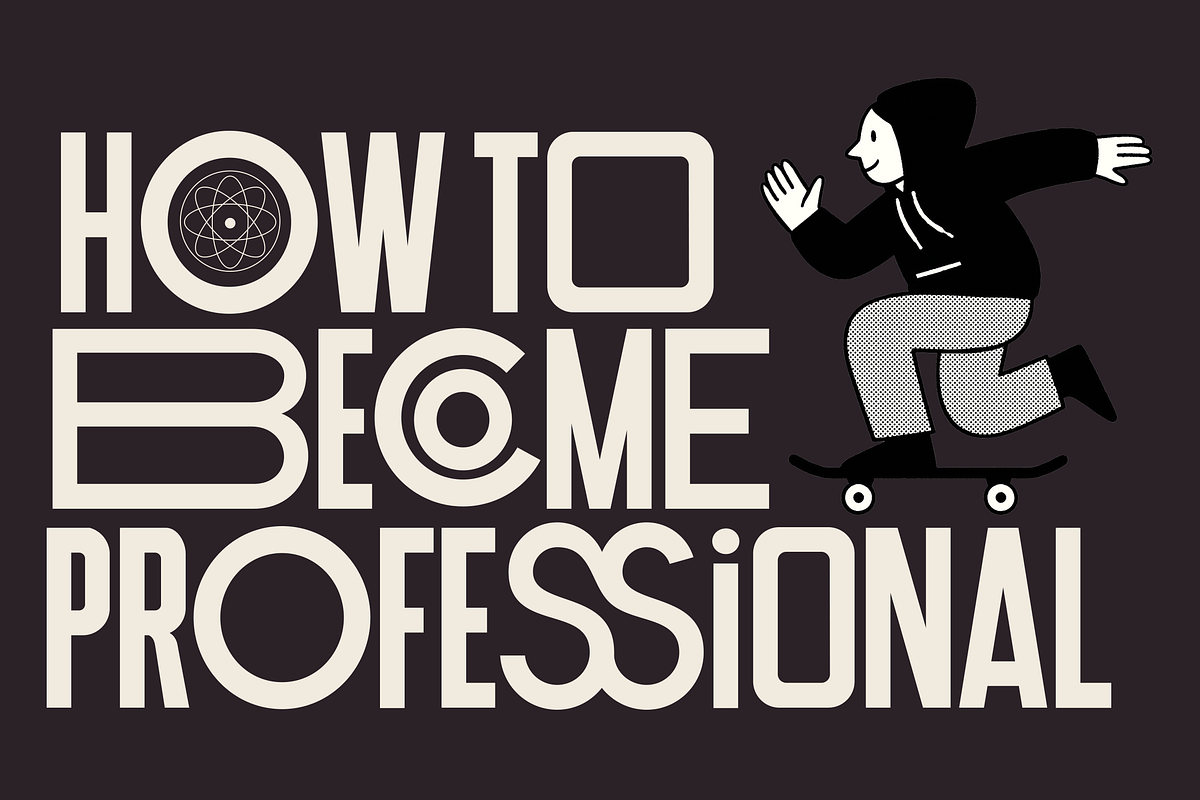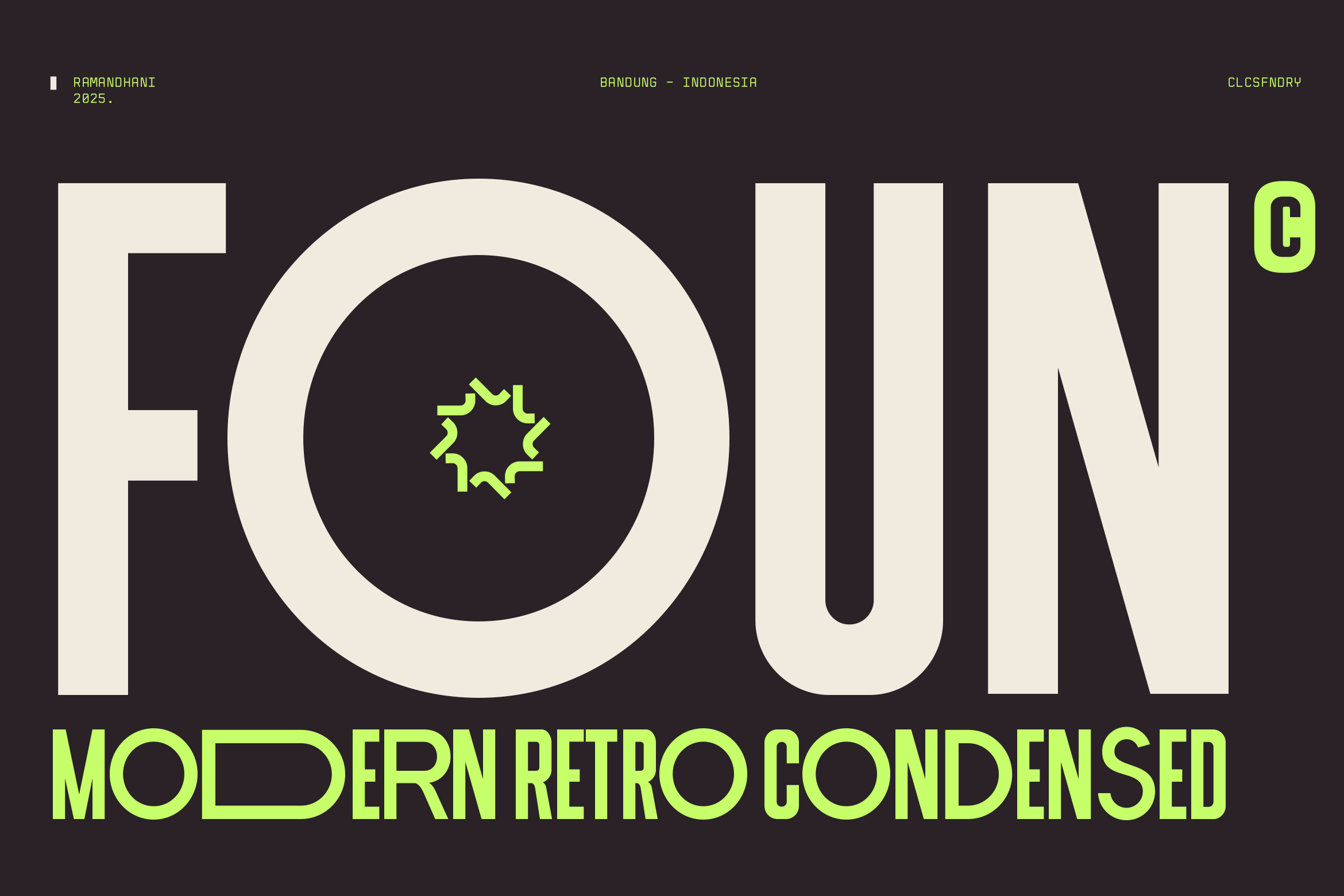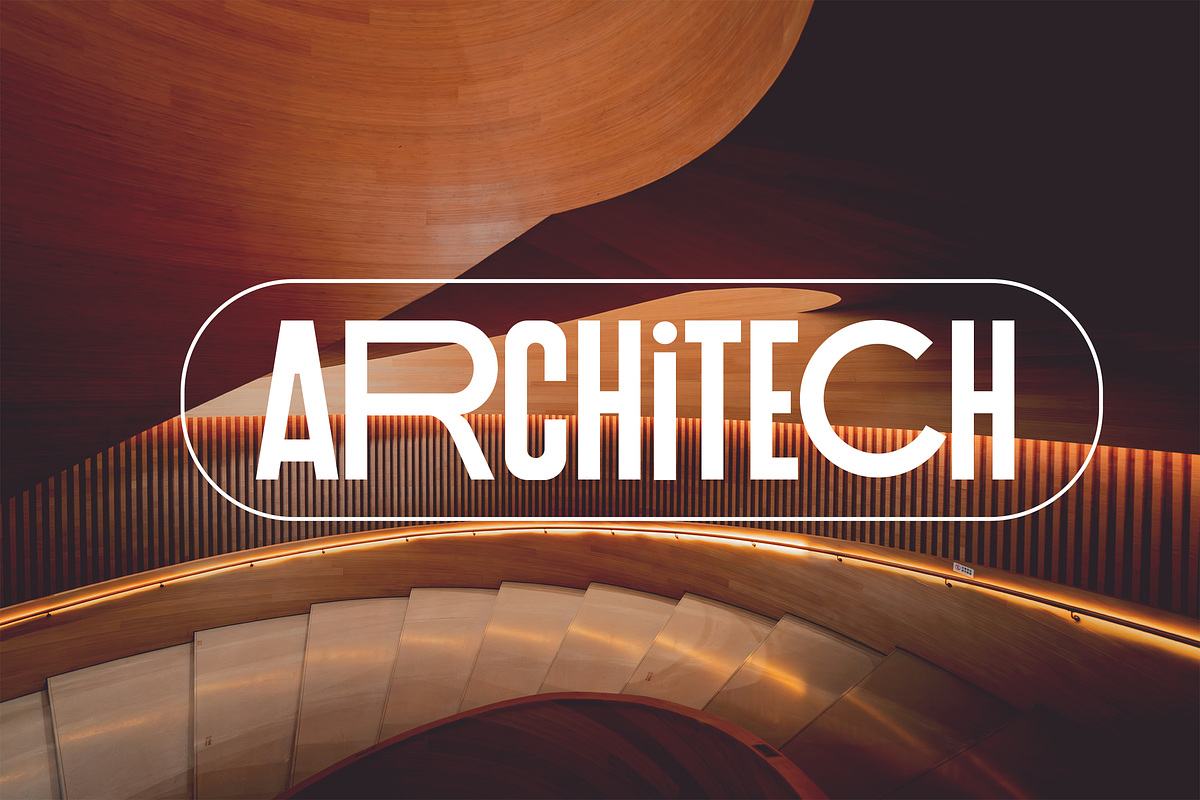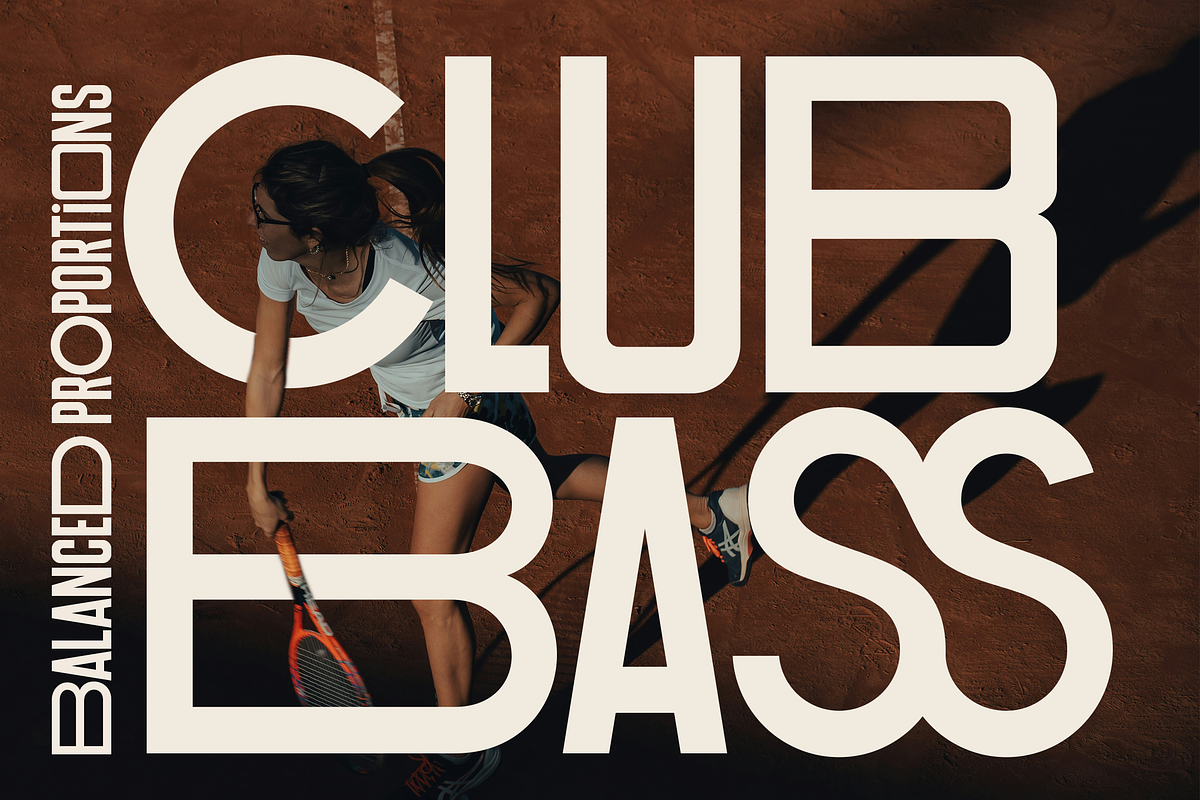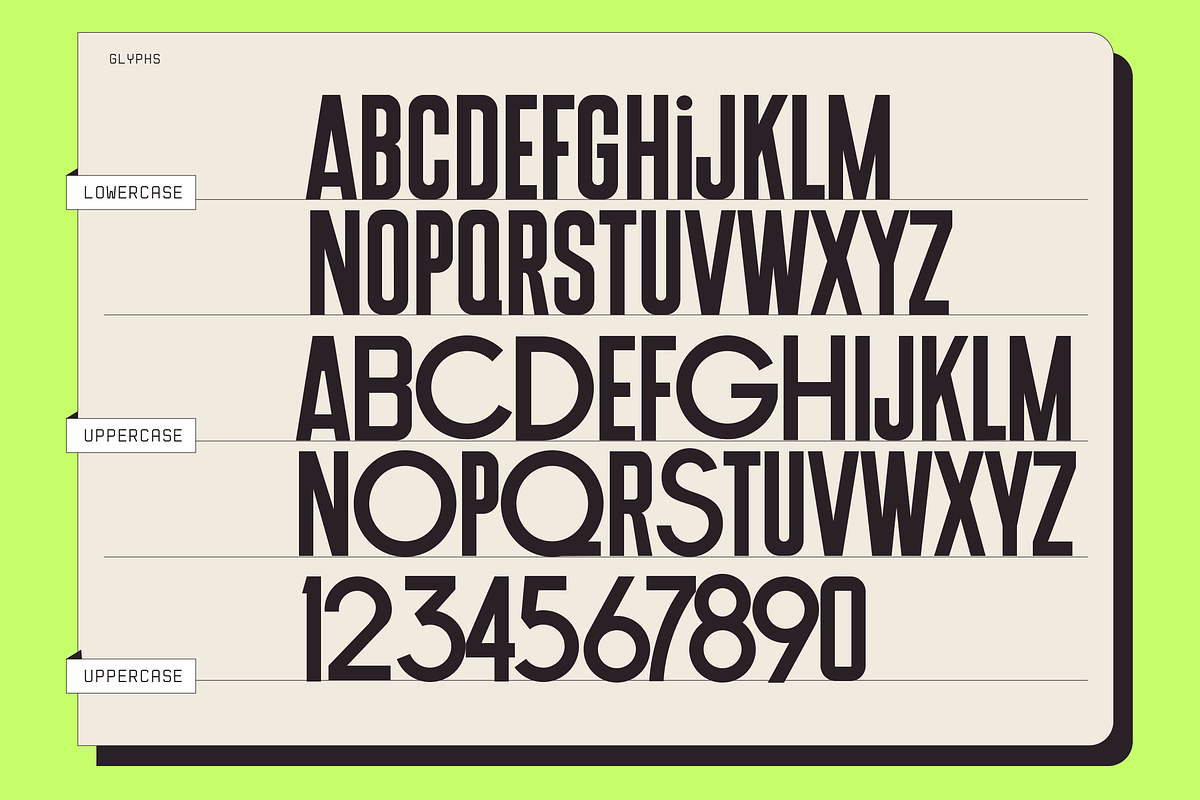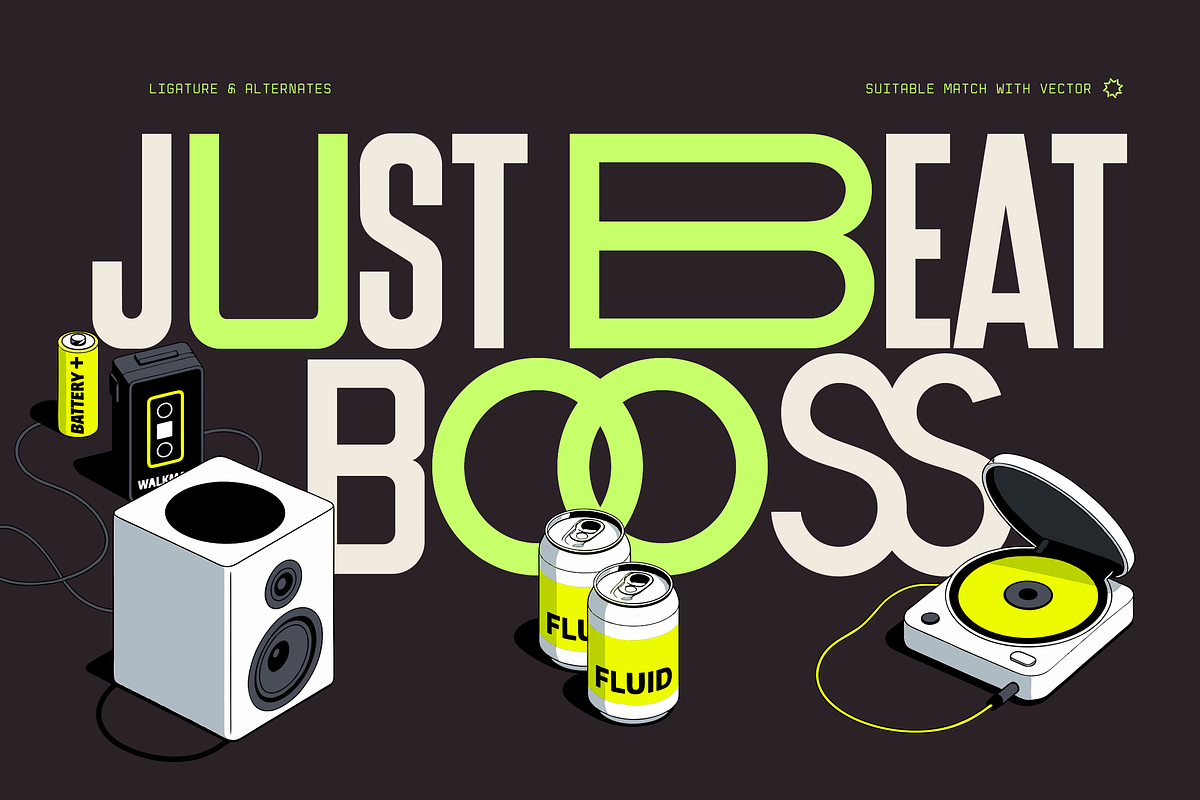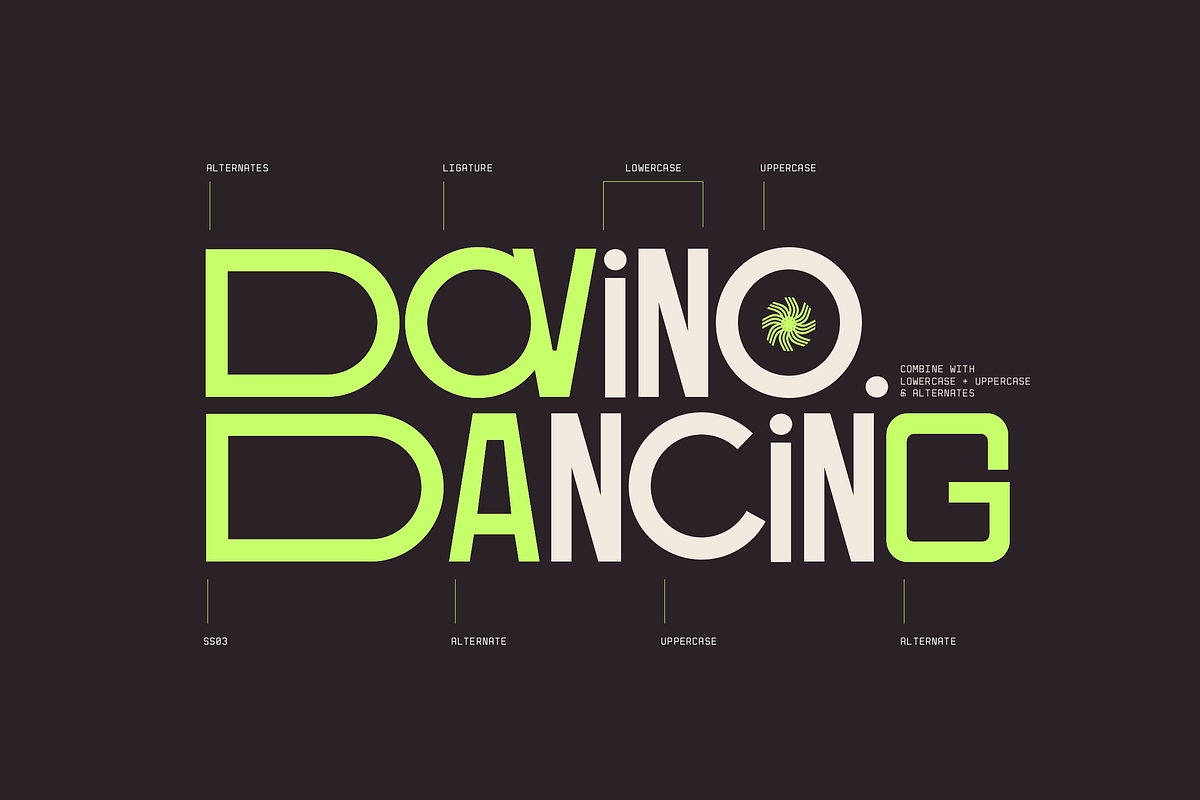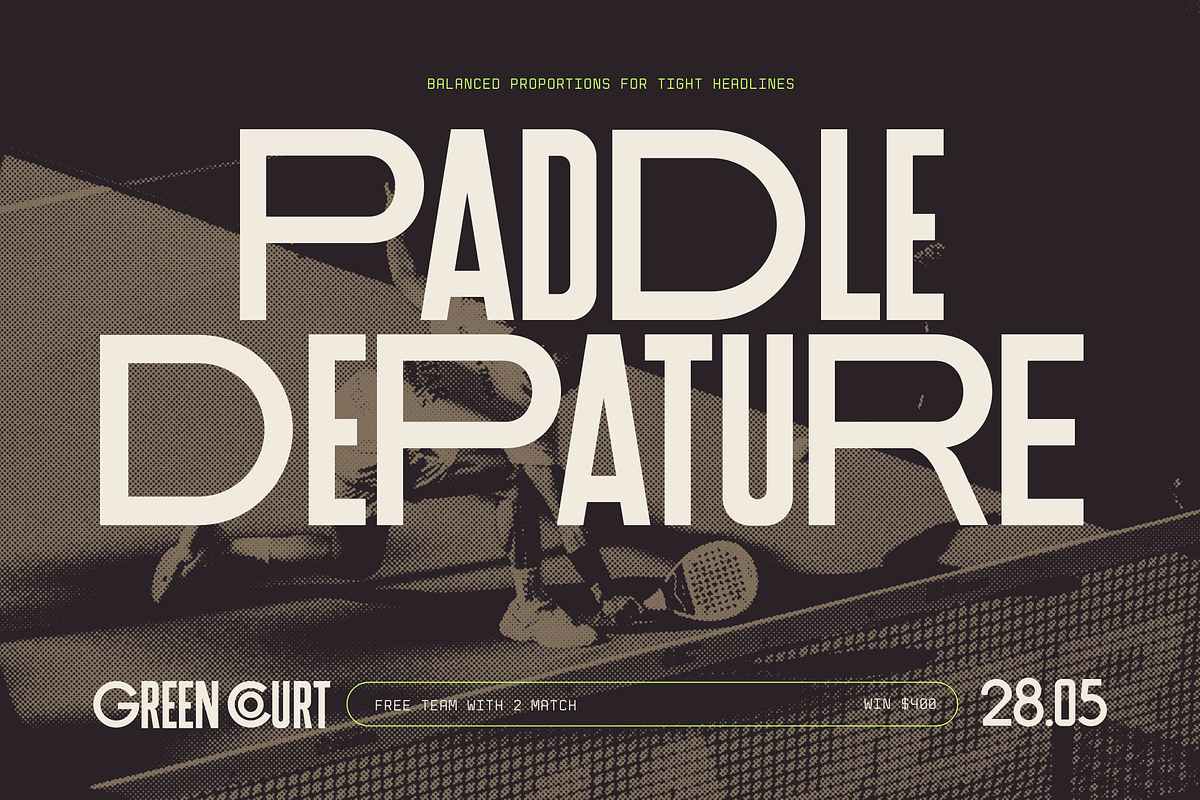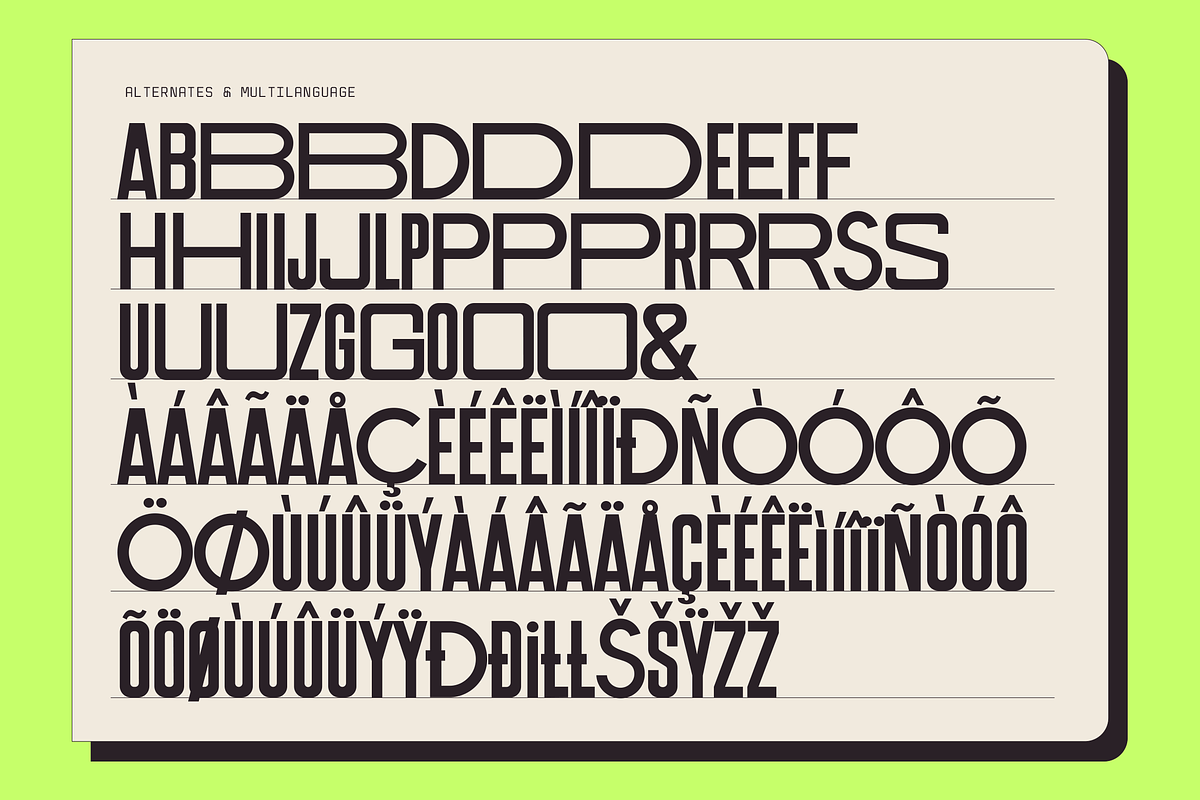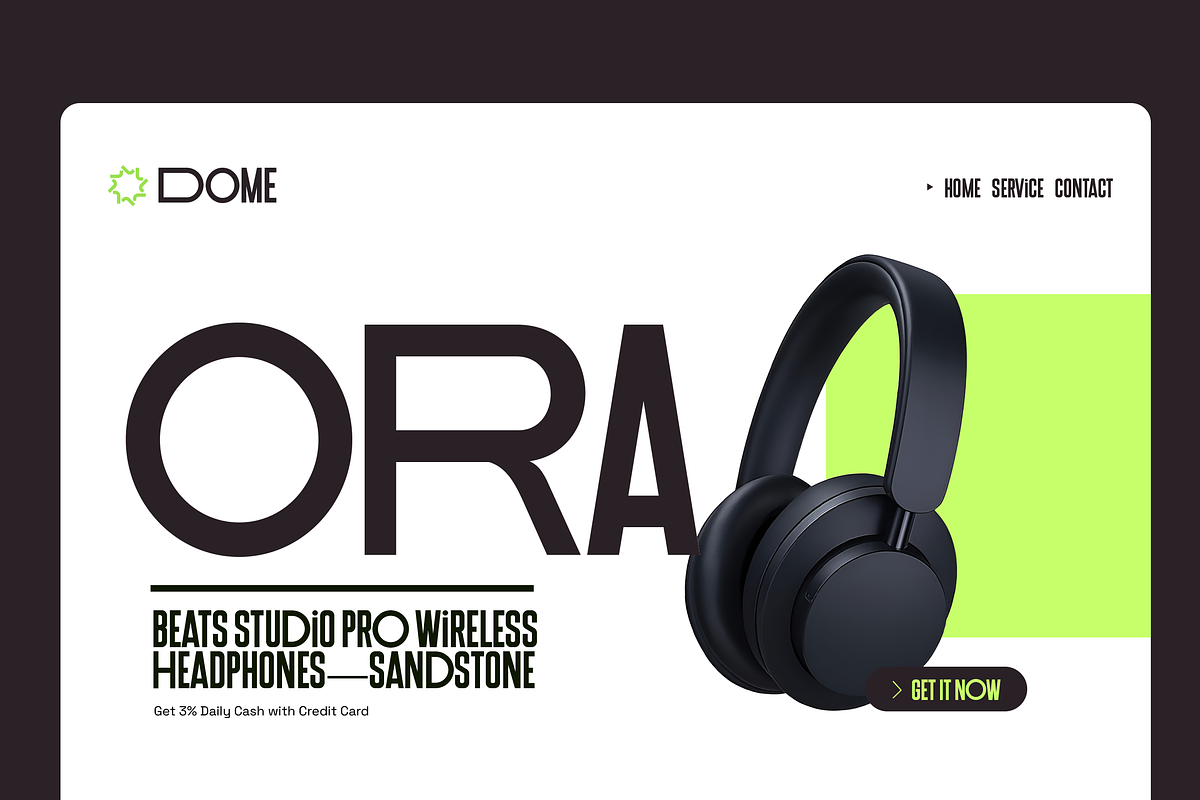
FOUN — Modern Retro Condensed Font
Foun is a modern condensed type design with a retro twist, perfect for projects that need a bold, stylish, and eye-catching look. The layout combines geometric precision with neon futuristic accents, delivering a versatile and highly impactful aesthetic. Step into a world where retro nostalgia meets futuristic minimalism. Foun is a condensed type design crafted to capture the bold spirit of the past and reimagine it for today’s creative landscape. With oversized lettering, sharp geometric details, and a striking balance of light and heavy strokes, this design radiates confidence and timeless cool.
Designed for designers who love clean geometry, sharp proportions, and an athletic urban feel — perfect for sports branding, editorial titles, music posters, or digital campaigns.
- Latin Simple Multilanguage
- Numbering & Punctual